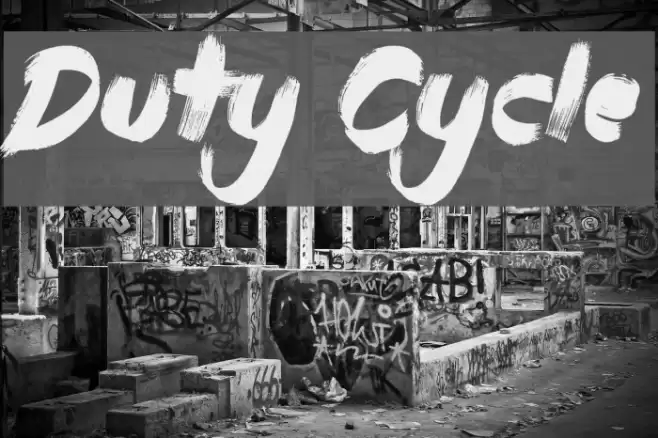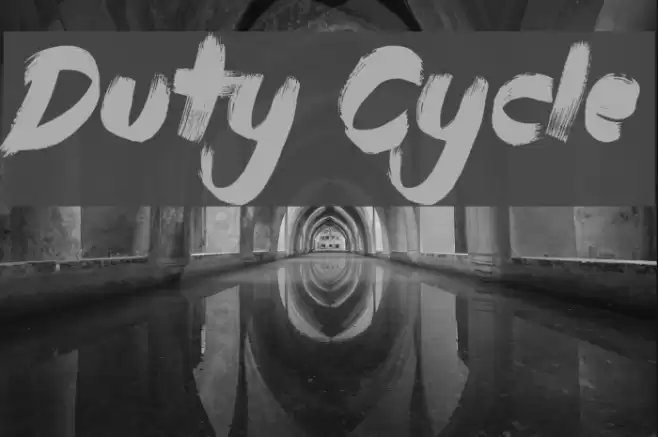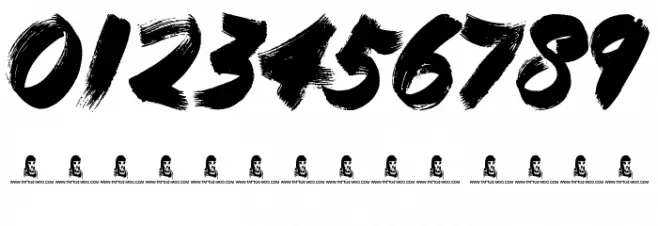
Duty Cycle Font
Duty Cycle Description
This font features a bold, expressive brushstroke style that exudes energy and dynamism. Each character is crafted with a sense of movement, as if painted with a broad brush, creating a textured and artistic appearance. The strokes vary in thickness, adding a natural and spontaneous feel. The uppercase and lowercase letters maintain a consistent style, with rounded edges and a slightly slanted orientation, enhancing the fluidity of the design. Numbers and special characters are equally bold and maintain the same brushstroke aesthetic, ensuring uniformity across all elements.
A bold, brushstroke font with dynamic and textured characters from Uncategorized fonts.
- Proposed Projects: Ideal for creative projects such as posters, album covers, branding for artistic ventures, or any design requiring a bold, expressive touch.
- Overall Style: Modern, Artistic